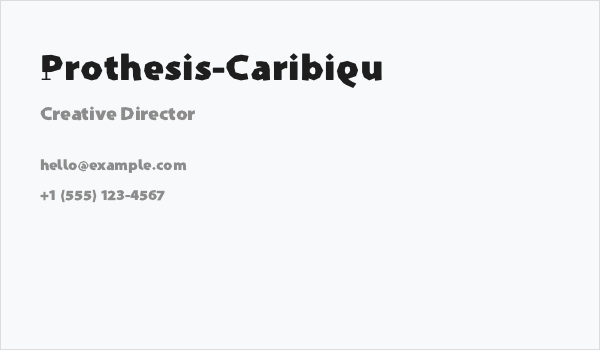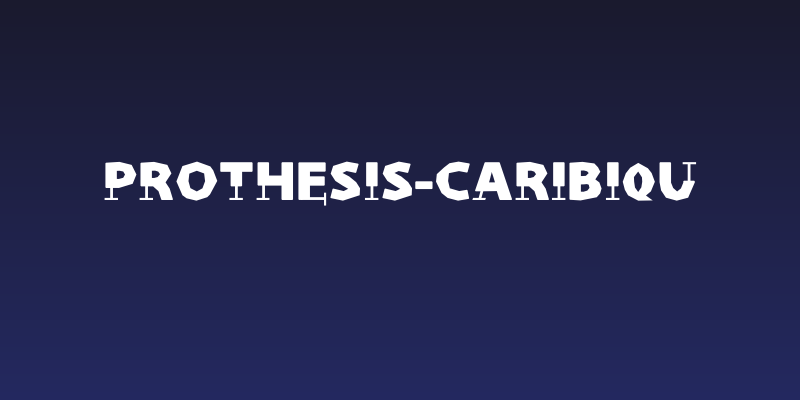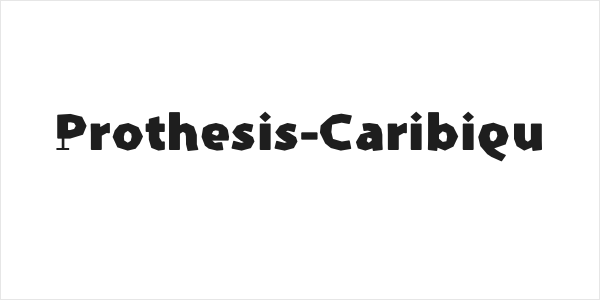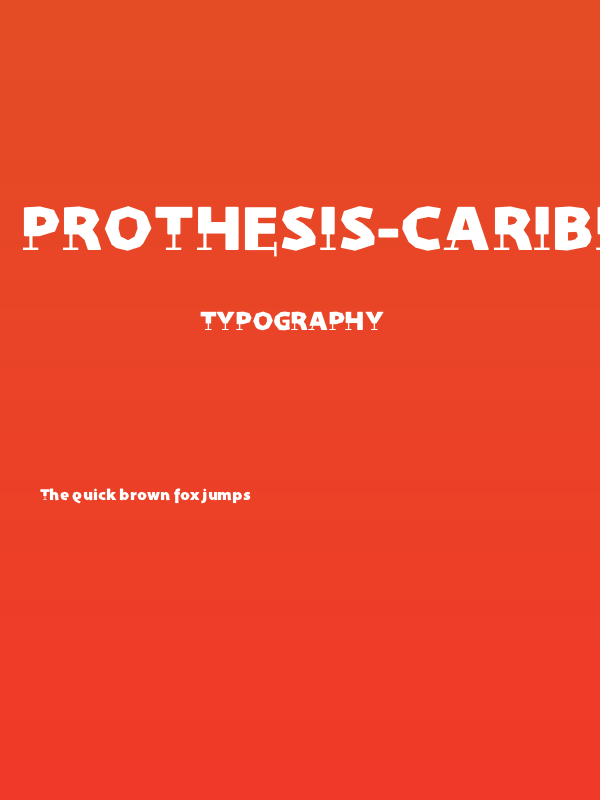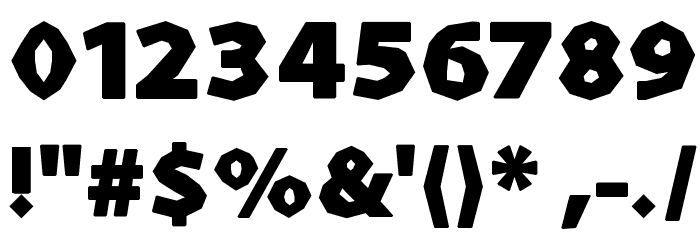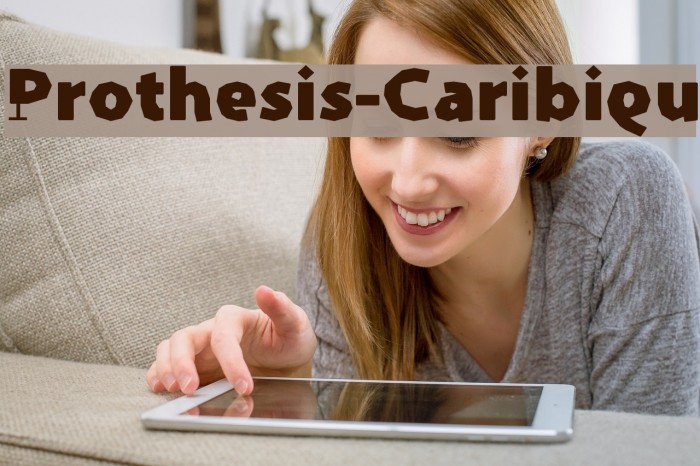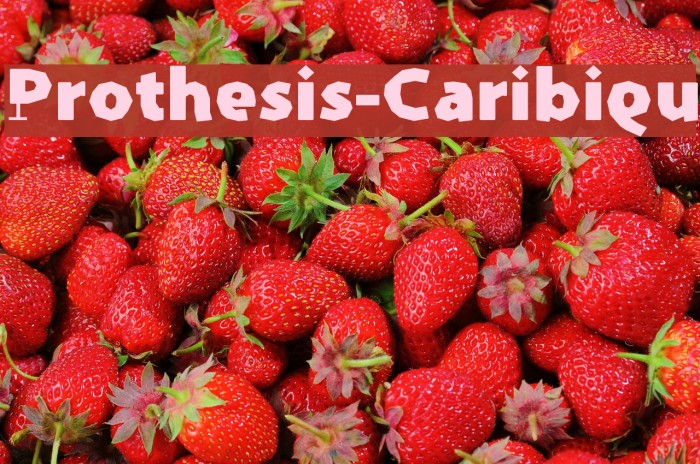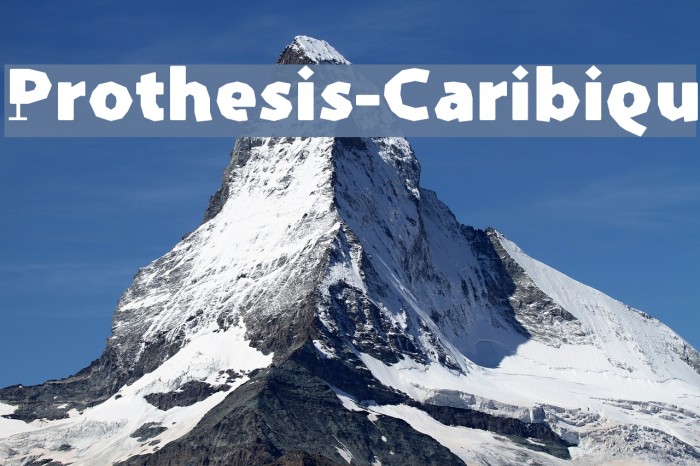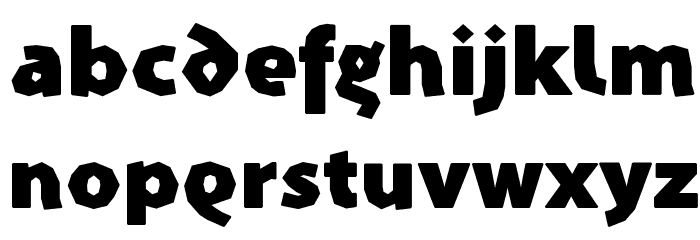
Prothesis-Caribiqu Font
Prothesis-Caribiqu Description
This font features a bold and dynamic style with a strong presence. The characters are designed with a unique angular and geometric structure, giving them a modern and edgy appearance. The uppercase letters are particularly striking with their sharp edges and bold lines, while the lowercase letters maintain a consistent style that complements the uppercase. The numbers and special characters follow the same design principles, ensuring a cohesive look across all elements. This font is ideal for projects that require a bold statement and a contemporary feel.
| Proposed Projects | Ideal for branding, posters, headlines, and any design that requires a strong visual impact. |